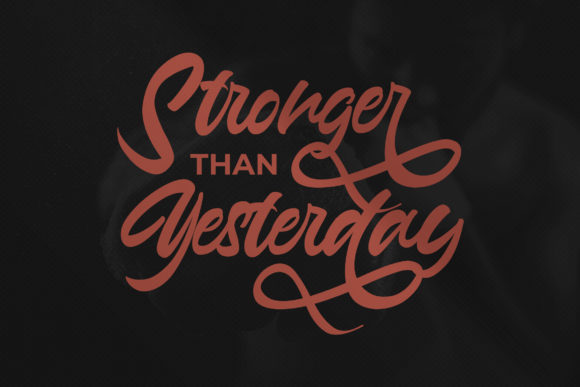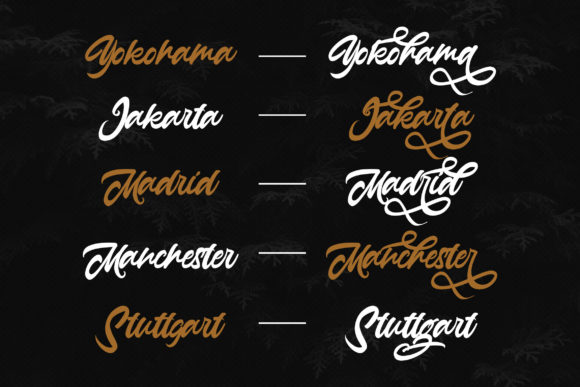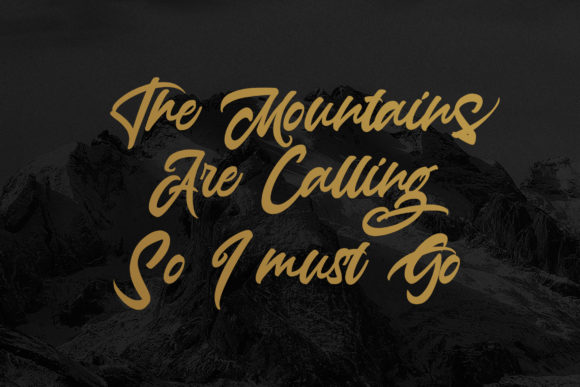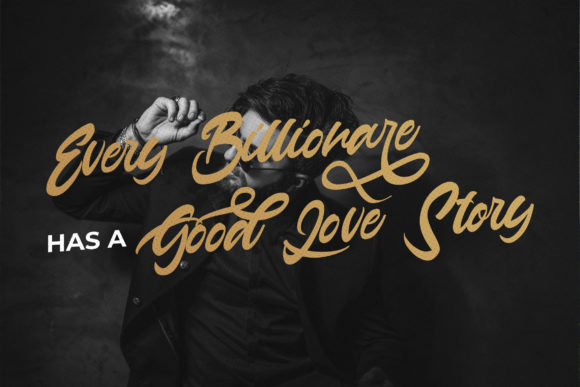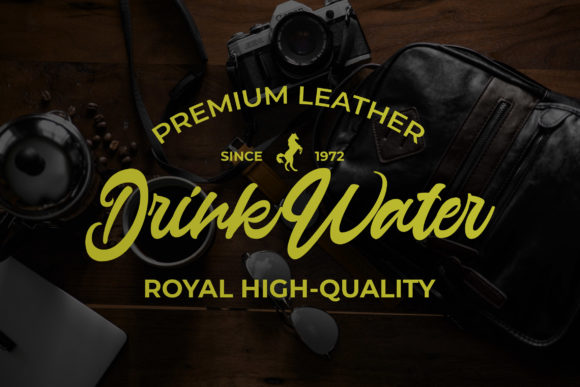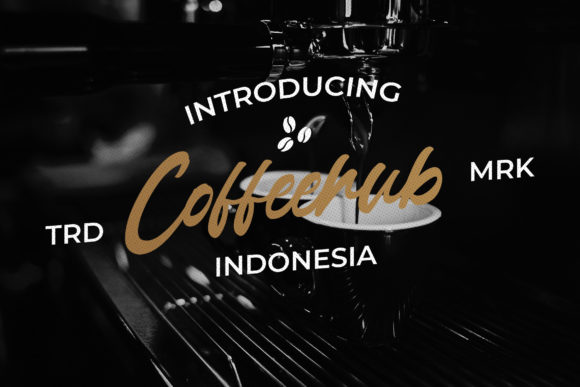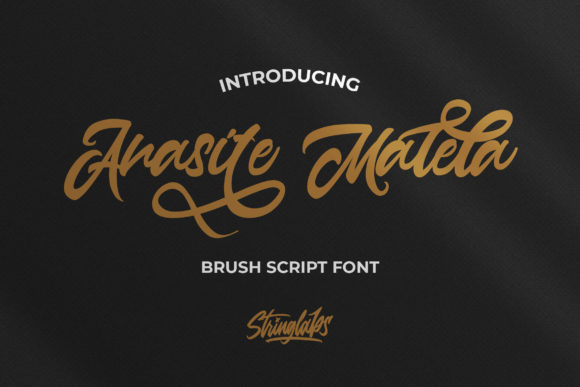
Introducing Anasite Malela Font: The Ultimate Retro Groove for Your Designs
Are you a designer or crafter looking to add a touch of retro flair to your projects? Look no further than the Anasite Malela Font! This bold script font is a game-changer for anyone seeking to infuse their designs with a unique, groovy vibe. With its distinctive feel and versatility, Anasite Malela is the perfect addition to your typography arsenal.
The Retro Style that Sets Anasite Malela Apart
Anasite Malela Font boasts a bold, script style that’s reminiscent of the groovy retro era. Its unique feel is characterized by flowing lines, curvaceous strokes, and a dash of playfulness. This font is not just a pretty face; it’s a statement piece that can instantly elevate your designs and set them apart from the crowd.
Endless Design Possibilities with Anasite Malela
One of the best things about Anasite Malela Font is its incredible versatility. Whether you’re working on a logo, branding materials, social media graphics, or even craft projects, this font can be used to add that special retro touch that makes your designs pop. Here are just a few ideas to get you started:
- Create eye-catching posters and flyers for events, concerts, or festivals
- Design bold, statement-making logos for retro-themed businesses or products
- Add a touch of nostalgia to your social media graphics and posts
- Use Anasite Malela to create unique, handmade cards and invitations
- Incorporate the font into your craft projects, such as scrapbooking or DIY decor
Why Designers and Crafters Love Anasite Malela Font
So, what makes Anasite Malela Font so special? Here are just a few reasons why designers and crafters are falling in love with this amazing font:
- Unique and distinctive style: Anasite Malela’s bold, script style is unlike anything else out there. Its retro vibe is instantly recognizable and can help your designs stand out in a crowded market.
- High-quality design: Anasite Malela Font is designed with precision and attention to detail, ensuring that your designs look professional and polished.
- Versatile: As mentioned earlier, Anasite Malela can be used for a wide range of design projects and applications.
Tips and Tricks for Using Anasite Malela Font
To get the most out of Anasite Malela Font, here are a few tips and tricks to keep in mind:
- Experiment with different colors and textures: Anasite Malela looks amazing in bold, bright colors, but don’t be afraid to try out different textures and patterns too.
- Mix and match with other fonts: Combine Anasite Malela with other fonts to create unique and interesting typography.
- Play with size and scale: Anasite Malela looks great in large, bold sizes, but it can also be used for smaller, more intricate designs.
Anasite Malela Font is a game-changer for designers and crafters looking to add a touch of retro flair to their projects. With its unique feel, versatility, and ease of use, this bold script font is sure to become a favorite in your design toolkit. So why wait? Download Anasite Malela Font today and start creating your own retro-inspired masterpieces!